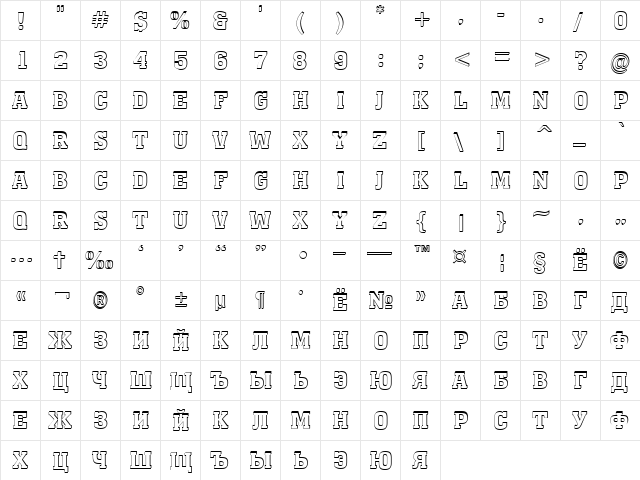
a_MonumentoTitulSh Bold
Design Context for a_MonumentoTitulSh Typeface
a_MonumentoTitulSh is a composed and adaptable typeface that performs quietly and consistently across a wide range of design contexts. Its bold stroke weight gives it real presence on the page.